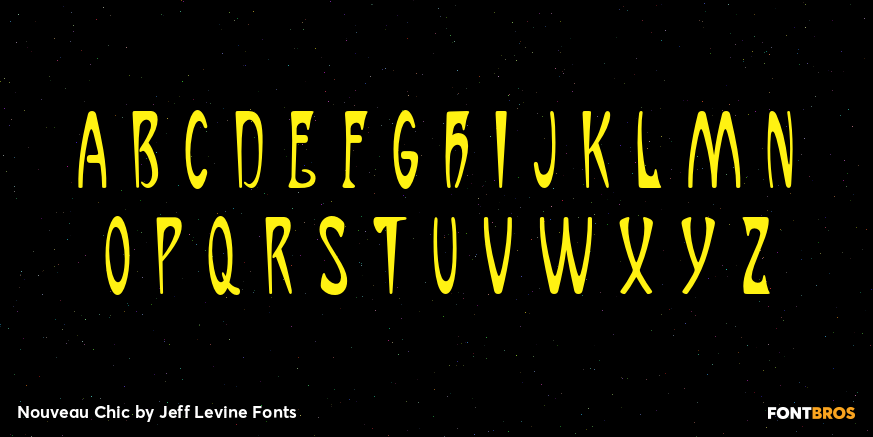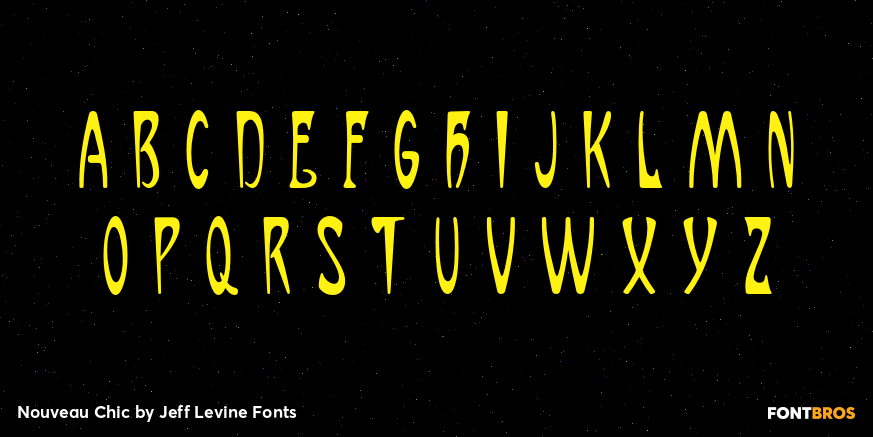
Nouveau Chic
Nouveau Chic JNL is based on vintage source material, and offers an elegant, condensed Art Nouveau typeface with a hint of Arabian or Middle Eastern influences.